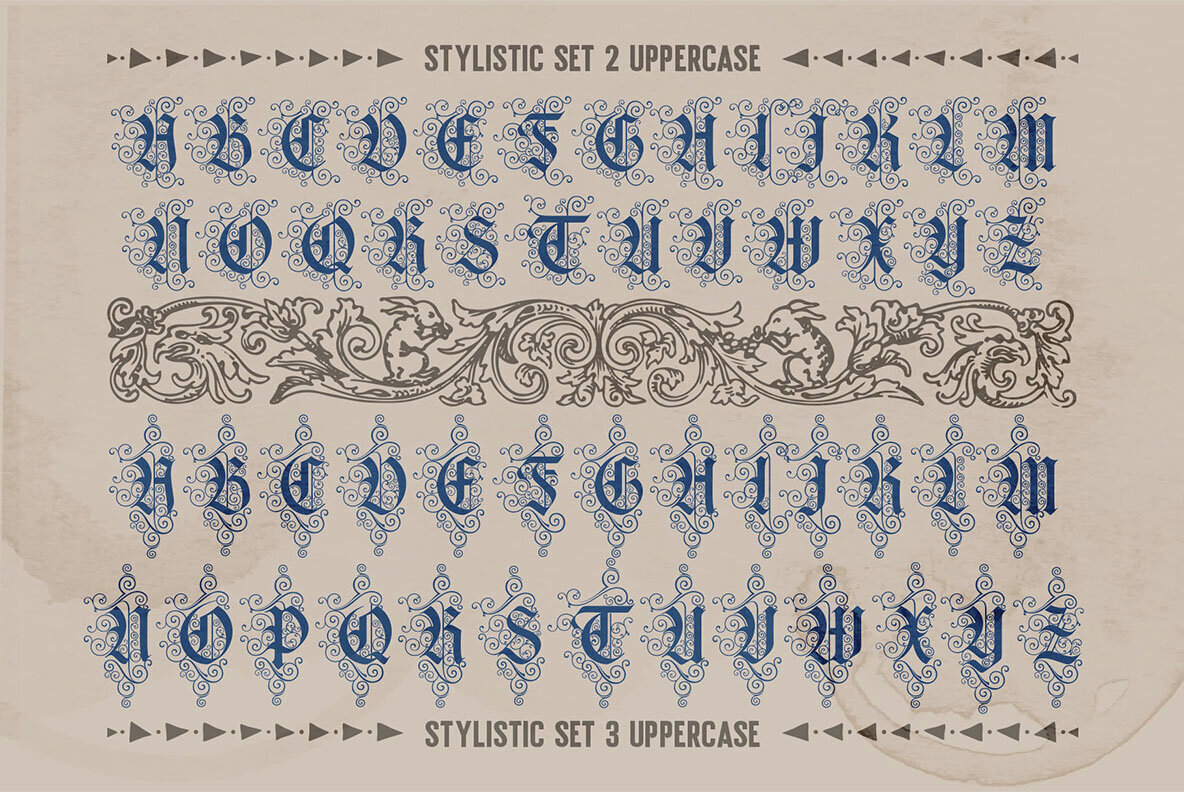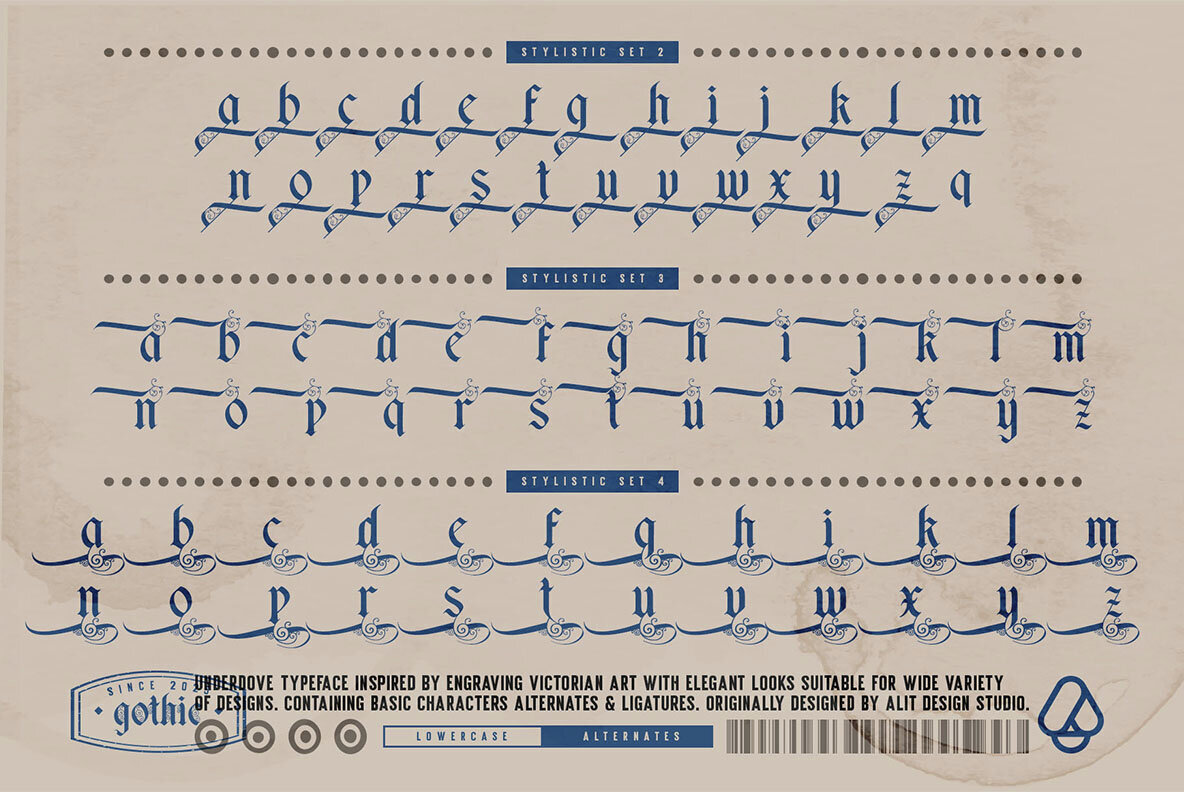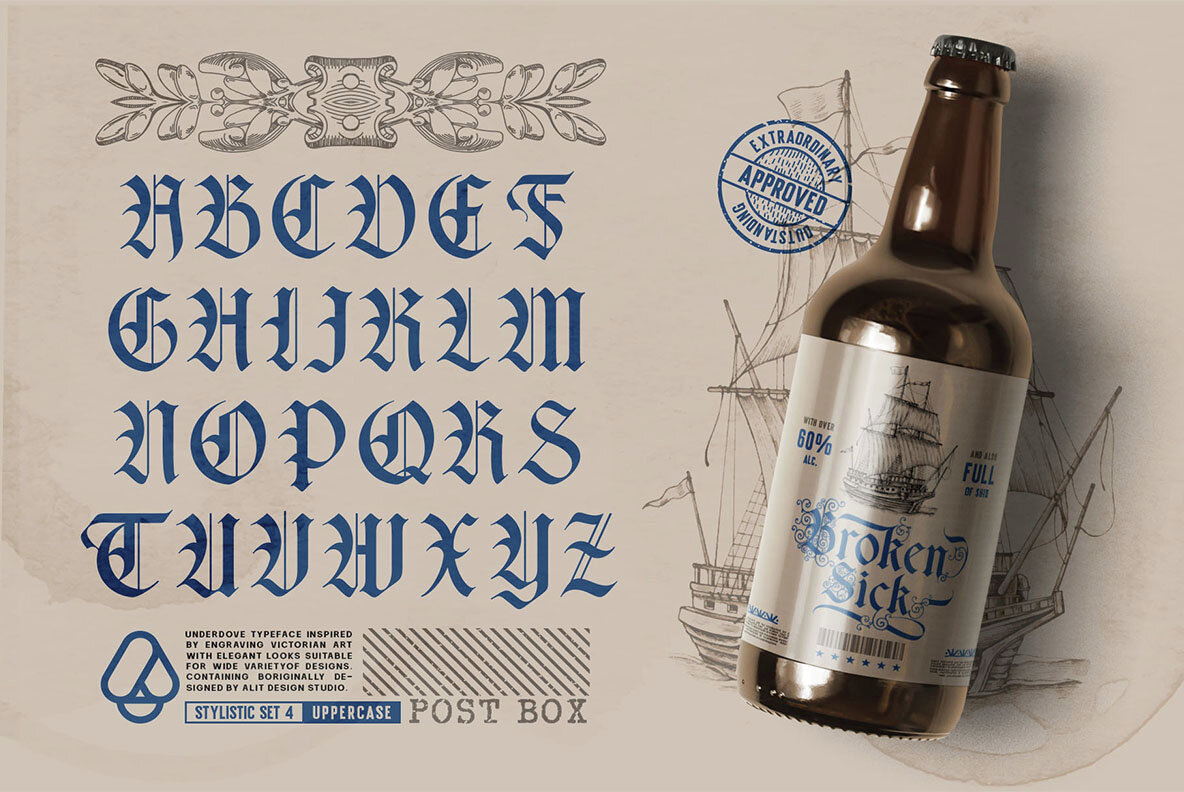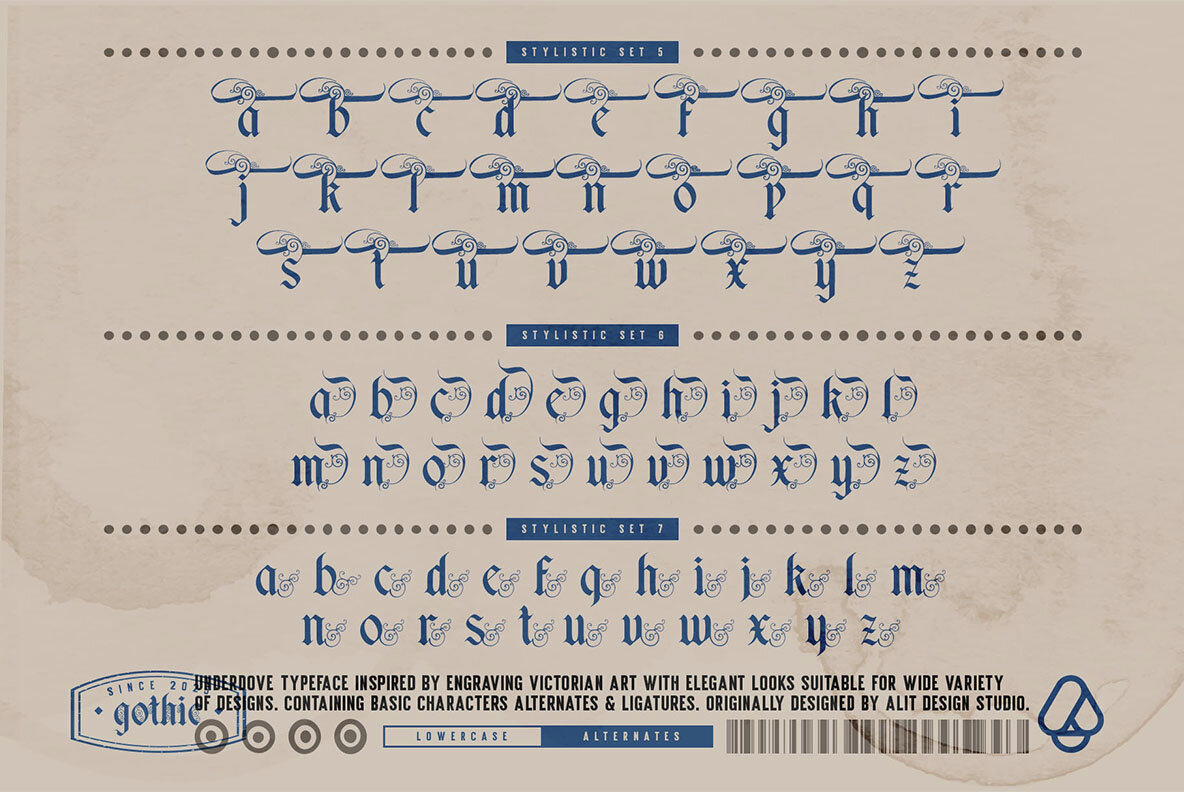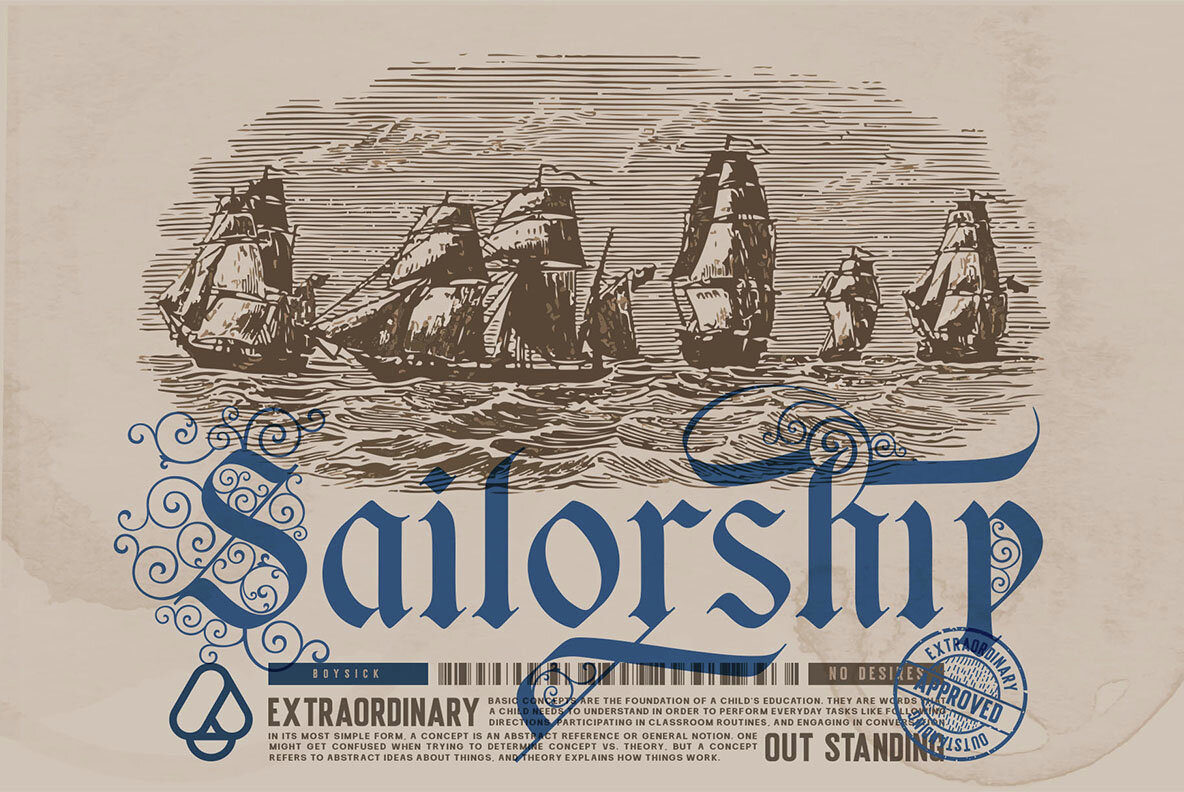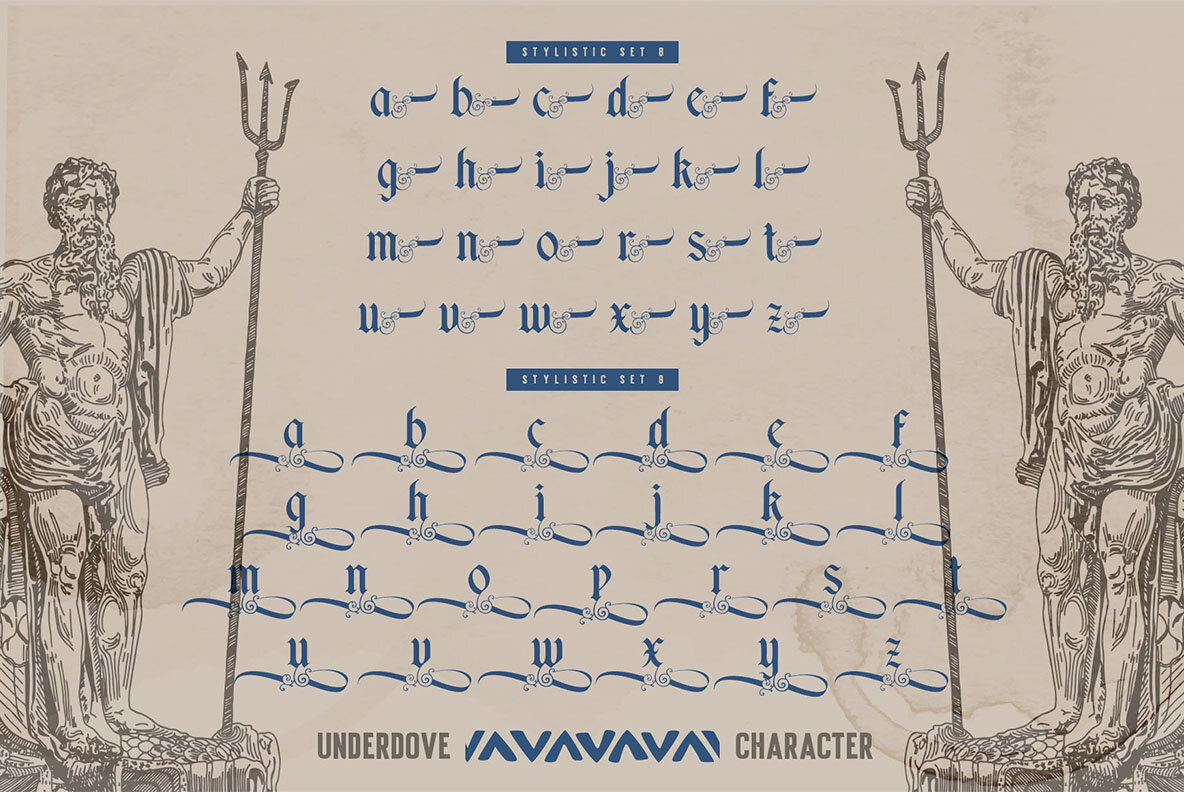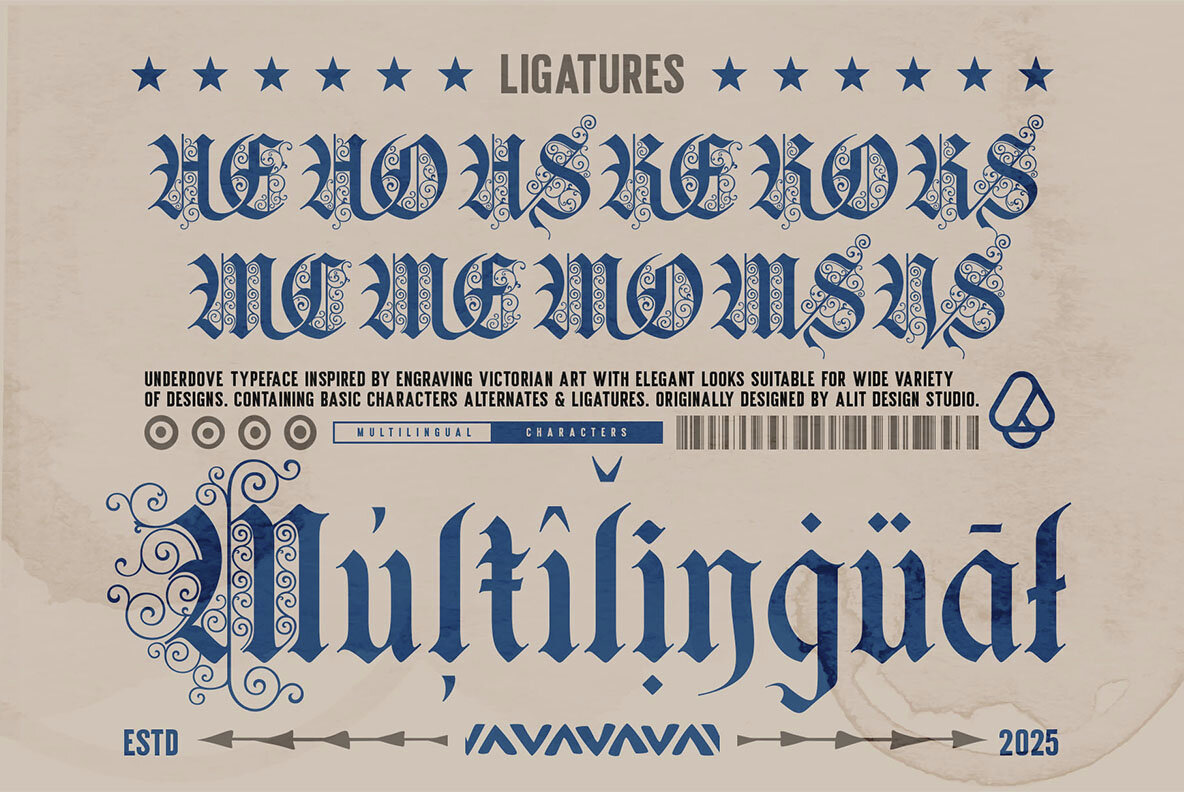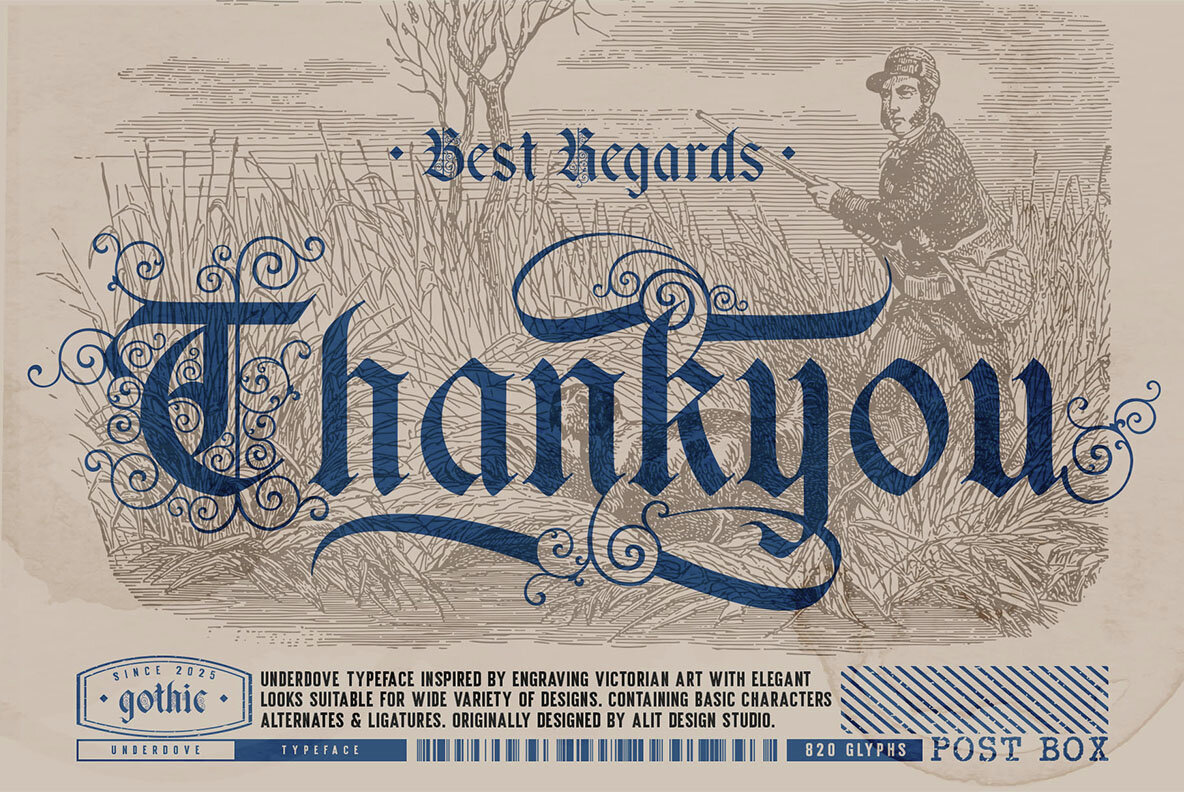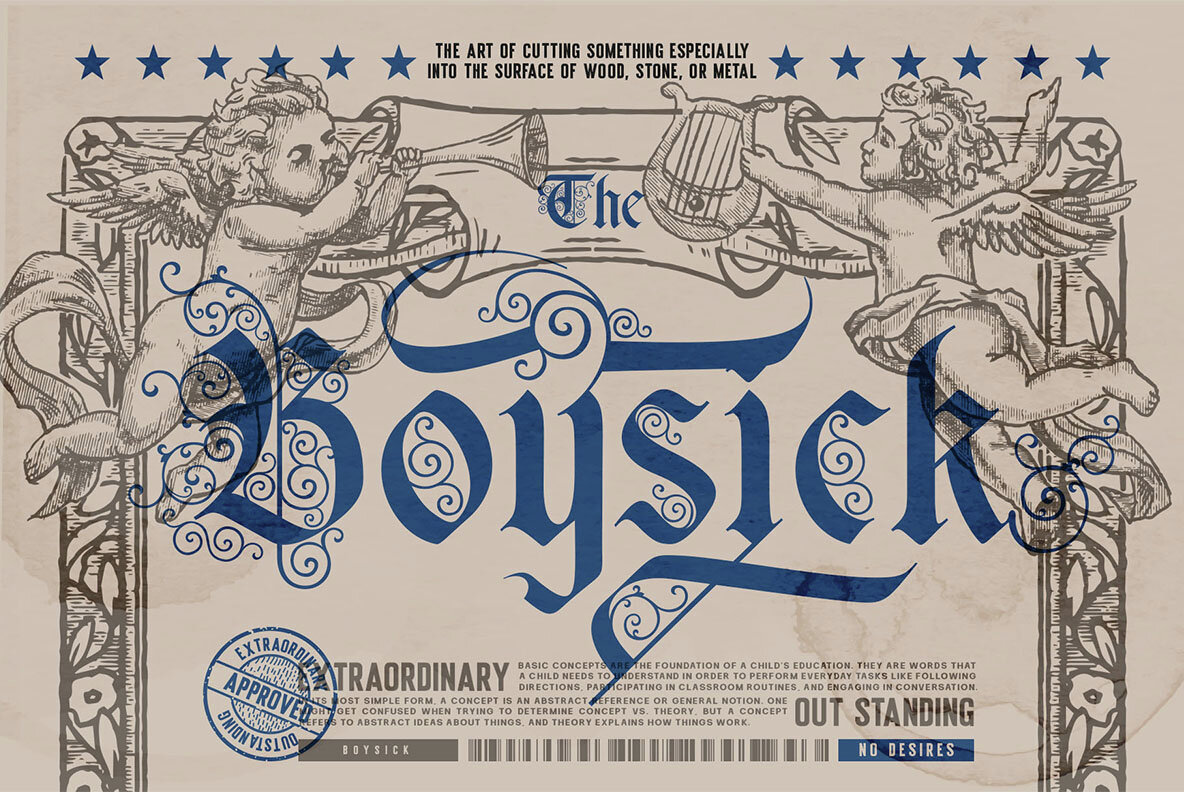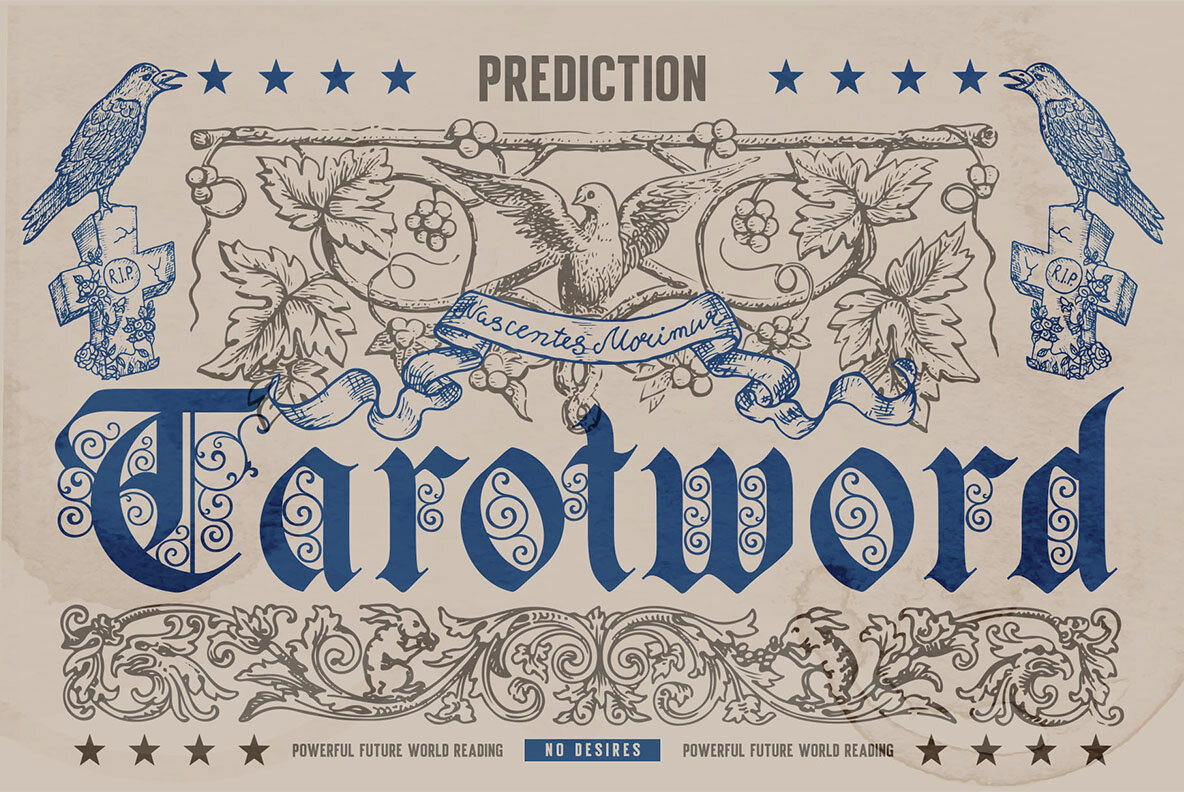
Underdove Font
Underdove Regular
Underdove Typeface is a meticulously crafted blackletter font capturing the soul of Victorian ornamental engravings blended with classical calligraphy. Bold Gothic structure pairs with flourished elegance, making it the perfect choice for branding, editorial designs, packaging, and high-impact visual compositions. This typeface is a visual narrative, echoing the craftsmanship of 19th-century woodcuts and maritime documents. The name Underdove conjures imagery of mystery, resilience, and nobility, reflected across its glyphs. Underdove features a classic blackletter structure prominent in: This blend of grit and grace suits logos, book covers, labels, historical themes, tattoo-style art, and editorials. Font Features Technical Details Perfect For: Underdove Typeface offers the versatility and classical grandeur needed to bring any creative vision to fruition.Underdove Typeface: A Gothic Tribute to Elegance and Authority
Inspired by History
Font Aesthetics